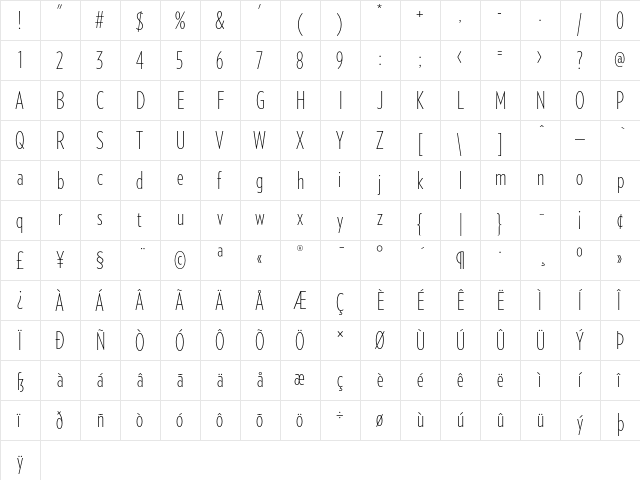
Verlag Compressed Extra Light
| Foundry | Hoefler & Frere-Jones |
| Designer | Hoefler & Frere-Jones |
Design Context for Verlag Compressed Typeface
Verlag Compressed takes a measured approach to typography — its balanced proportions and neutral character make it a reliable workhorse for both digital and print work. The delicate stroke weight brings airiness and refinement to layouts.